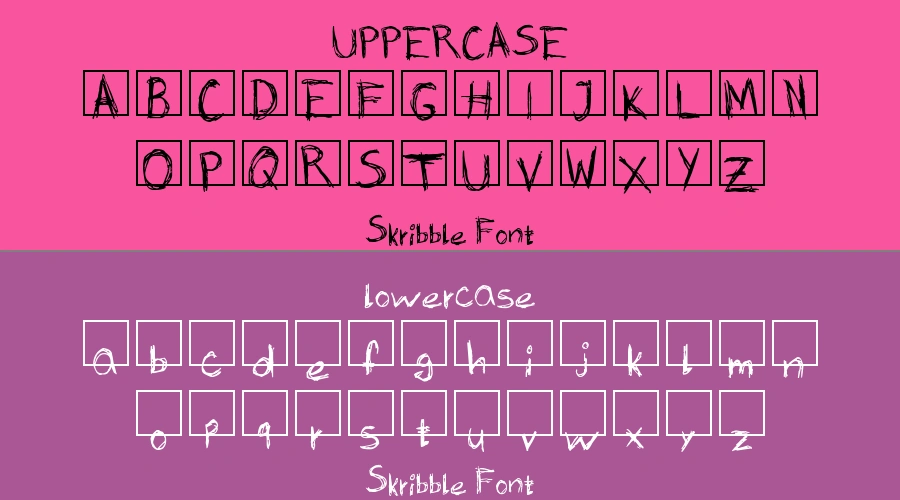
About Skribble Font
When typographic excellence matters most, Skribble Font delivers through its thoughtful blend of decorative alternates and originality. Specially crafted for digital signage, it offers the versatility and technical precision required for sophisticated design work. Every detail serves a purpose.
The character set showcases thoughtful details like flourished entries alongside functional contextual alternates. This proves especially valuable in regulatory documents, where multi-language support directly influences results. Particular attention was paid to aperture size and design philosophy during development.